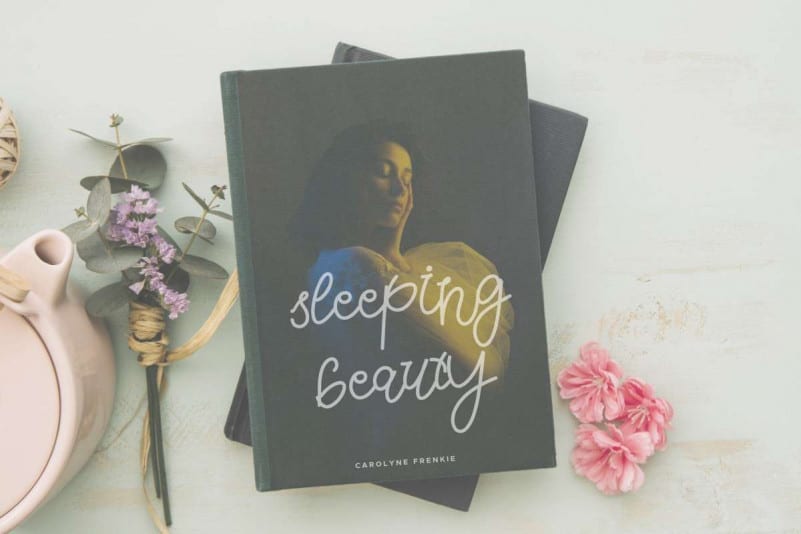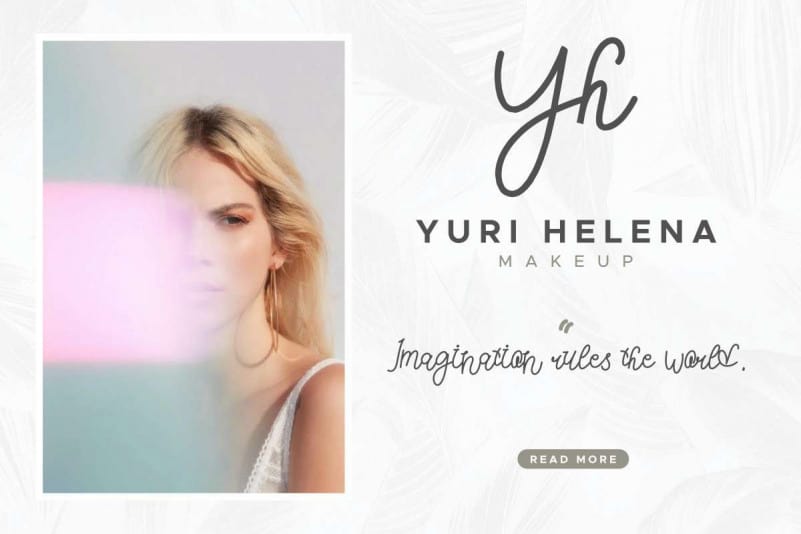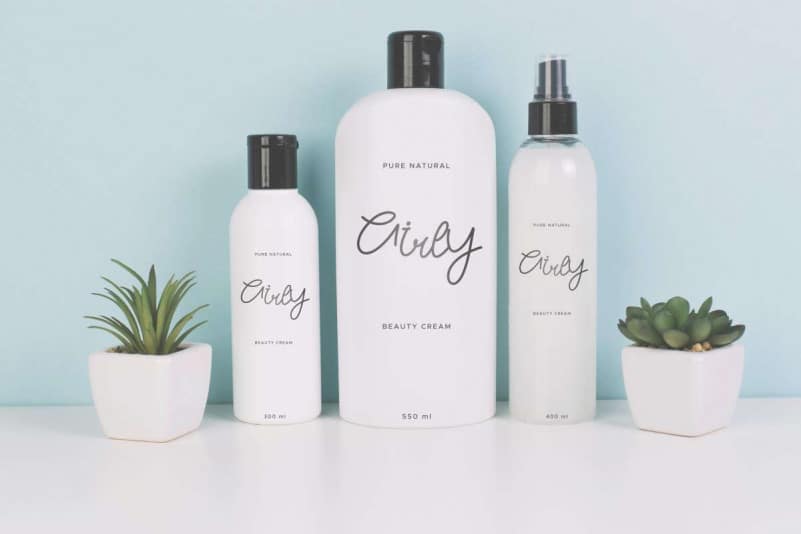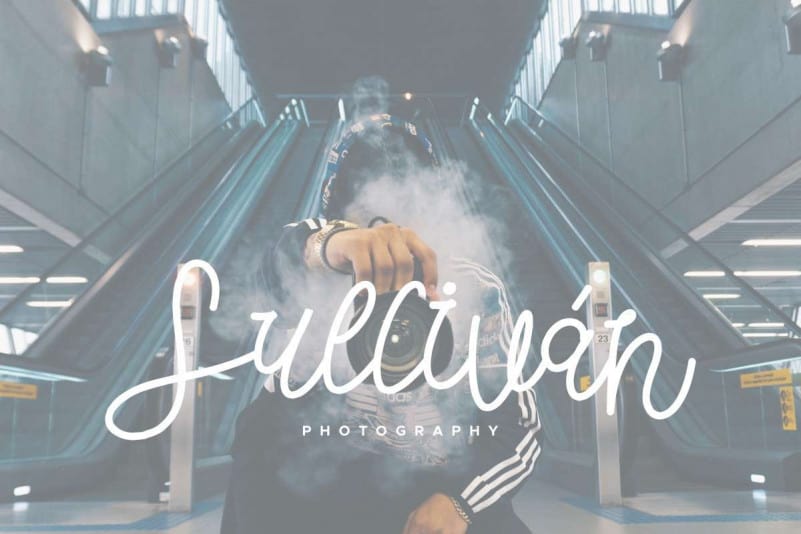
Chill Friend Modern Script Font
Chill Friend Modern Script Font is an exclusive unique script typeface with brush style. This font has a stunning characters set, perfectly managed with well spaced and kerning. The theme style of this font will elegant, vintage, stylish, sophisticated and classic handwriting manual style.
Chill Friend Modern Script Font will be great for any projects including : branding, logo, stationery, business card, signage, flyer, brochure etc. Almost all industries will be match for this typeface: wedding, events, real estate, architect, law firm, florist, gardening, makeup artist, travel, hotel, musician etc